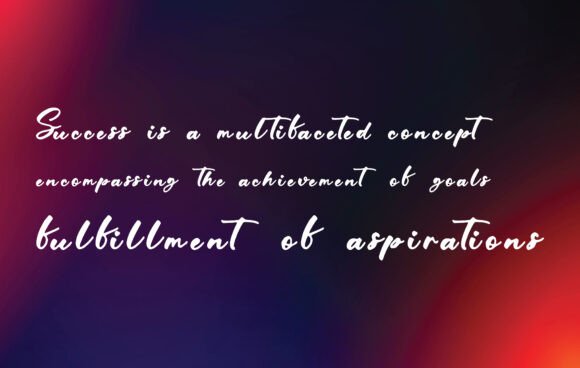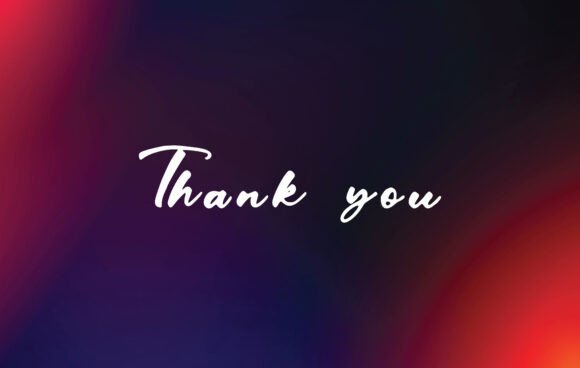
Discover the Beauty of Anderson Font: Elevate Your Designs with this Lovely Handwritten Font
Are you a designer or crafter looking for a font that can take your creative ideas to the next level? Look no further than Anderson Font, a lovely and beautiful handwritten font that is sure to impress. With its unique and elegant style, Anderson Font is the perfect choice for creating eye-catching logos, branding, and quotes that will leave a lasting impression on your audience.
The Characteristics of Anderson Font
Anderson Font is a handwritten font that exudes a sense of sophistication and elegance. Its flowing lines and curves give it a natural and organic feel, making it perfect for designs that require a personal touch. The font is highly legible, even at small sizes, making it versatile and easy to use in a variety of applications.
One of the standout features of Anderson Font is its ability to add a touch of warmth and personality to any design. Whether you’re creating a logo, branding materials, or social media graphics, Anderson Font is sure to bring a level of sophistication and style that will set your designs apart from the rest.
Why Choose Anderson Font?
So, why should you choose Anderson Font for your design projects? Here are just a few reasons why this font stands out:
• Unique and Elegant Style: Anderson Font has a unique and elegant style that is sure to impress. Its flowing lines and curves give it a natural and organic feel that is perfect for designs that require a personal touch.
• Highly Legible: Anderson Font is highly legible, even at small sizes, making it versatile and easy to use in a variety of applications.
• Perfect for Logos and Branding: Anderson Font is perfect for creating eye-catching logos and branding materials that will leave a lasting impression on your audience.
• Easy to Use: Anderson Font is easy to use and can be easily integrated into your design workflow.
How to Use Anderson Font in Your Designs
Anderson Font is a versatile font that can be used in a variety of design applications. Here are a few ideas for how you can use Anderson Font in your designs:
• Logos and Branding: Use Anderson Font to create eye-catching logos and branding materials that will leave a lasting impression on your audience.
• Social Media Graphics: Use Anderson Font to create social media graphics that will stand out from the crowd.
• Quotes and Posters: Use Anderson Font to create inspiring quotes and posters that will motivate and inspire your audience.
• Packaging and Labels: Use Anderson Font to create packaging and labels that will add a touch of elegance and sophistication to your products.
Tips for Getting the Most Out of Anderson Font
Here are a few tips for getting the most out of Anderson Font:
• Experiment with Different Sizes and Colors: Experiment with different sizes and colors to find the perfect combination for your design.
• Use Anderson Font in Combination with Other Fonts: Use Anderson Font in combination with other fonts to create a unique and visually appealing design.
• Pay Attention to Kerning and Spacing: Pay attention to kerning and spacing to ensure that your text is easy to read and visually appealing.
In conclusion, Anderson Font is a lovely and beautiful handwritten font that is sure to take your creative ideas to the next level. With its unique and elegant style, Anderson Font is the perfect choice for creating eye-catching logos, branding, and quotes that will leave a lasting impression on your audience. Whether you’re a designer or crafter, Anderson Font is a must-have font that will add a touch of sophistication and style to any design.